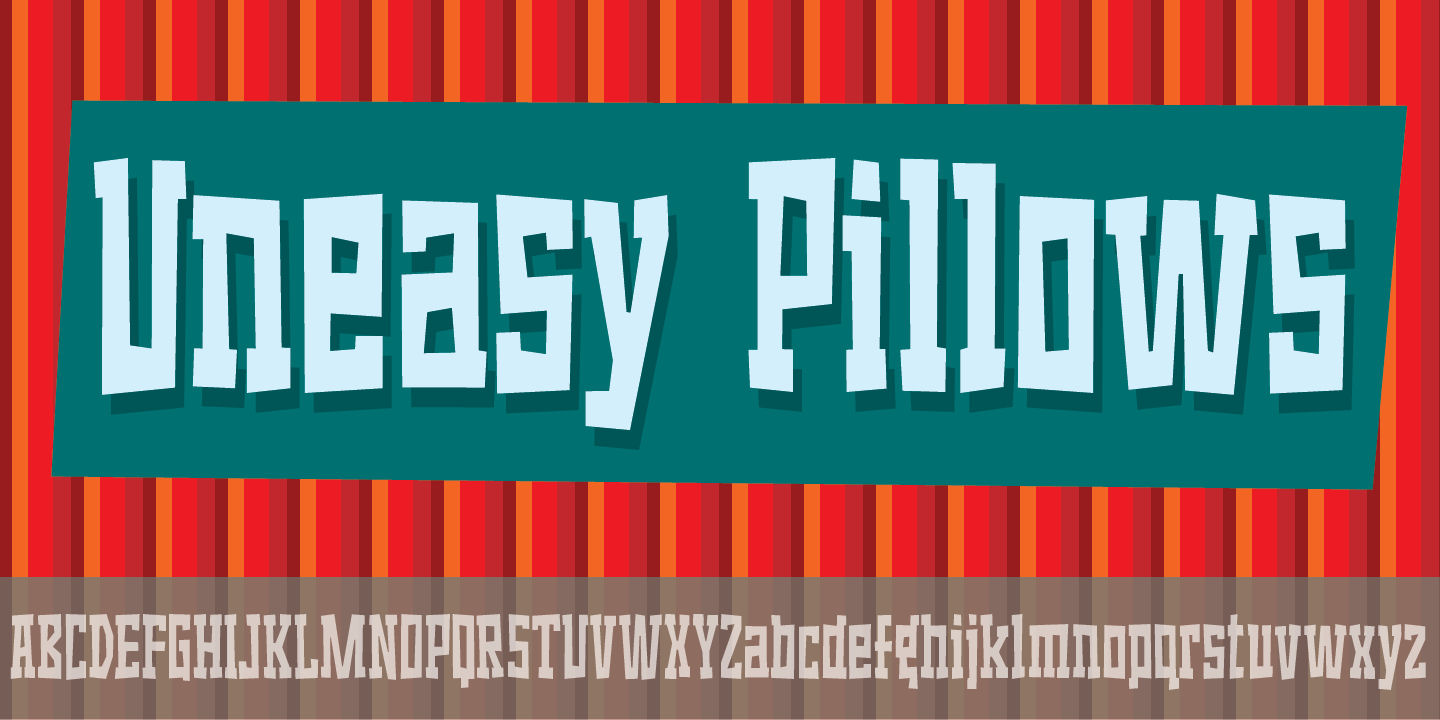
Uneasy Pillows Font is perfect for psychological thriller book covers, unsettling art exhibitions, anxiety awareness campaigns, sleep disorder clinics, insomnia treatment materials, restless night themed projects, nightmare-inspired designs, psychological horror movie titles, mental health advocacy materials, and any projects that need disturbing typography with unsettling atmosphere and restless character.
What makes Uneasy Pillows Font exciting is its psychologically unsettling design that captures the restless anxiety and disturbed sleep patterns with letterforms that seem to shift and writhe with nervous energy and uncomfortable tension. This unsettling typeface features irregular characteristics with anxious proportions that evoke sleepless nights, racing thoughts, and the uncomfortable feeling of pillows that never quite provide the comfort they promise. The font's restless character makes it perfect for mental health organizations and artistic projects seeking to communicate psychological tension, sleep disorders, and the complex relationship between rest and anxiety in modern life.
Uneasy Pillows Font family includes restless style variations featuring regular, bold, twisted, and distorted versions. The font family also contains unsettling decorative elements, anxiety symbols, sleep disorder ornaments, and psychological dingbats that enhance the uncomfortable atmosphere. Additional options include shifting variants that simulate restless movement, along with special character sets designed for different anxiety moods and psychological applications.
Embrace the restless with Uneasy Pillows Font Free Download and disturb your creative projects with typography that captures the unsettling reality of sleepless nights and anxious thoughts that refuse to rest. This psychologically complex typeface delivers uncomfortable performance across all anxiety-focused applications, ensuring your message resonates with the restless energy that many people experience but rarely discuss. Download Uneasy Pillows Font today and turn your designs inside out with typography that acknowledges the darker side of human experience, creating meaningful connections with audiences who understand that sometimes comfort is elusive and peace of mind requires acknowledging our deepest anxieties.